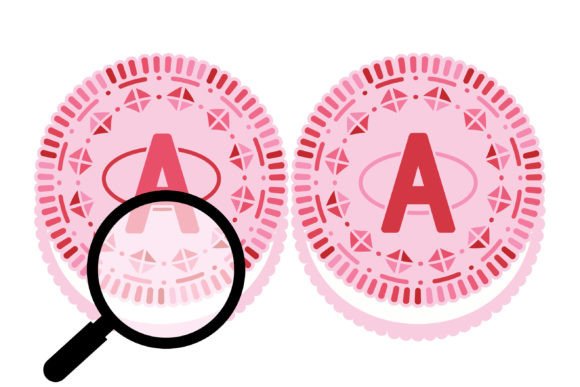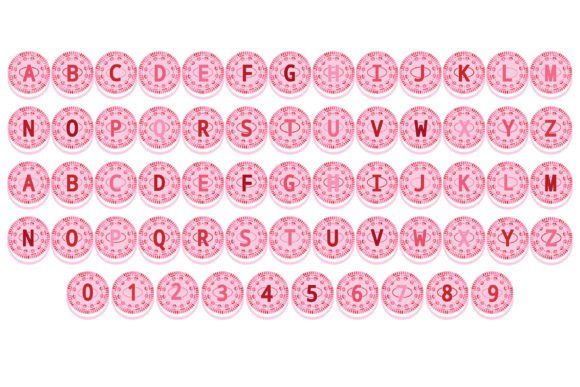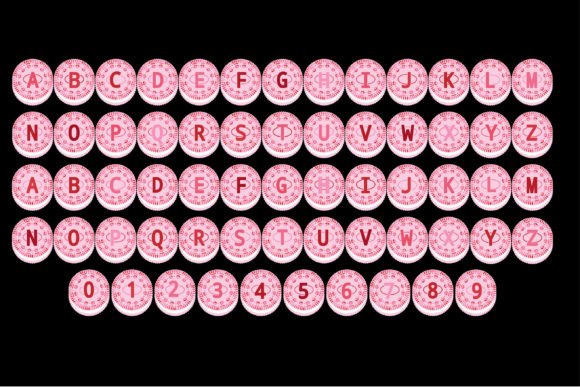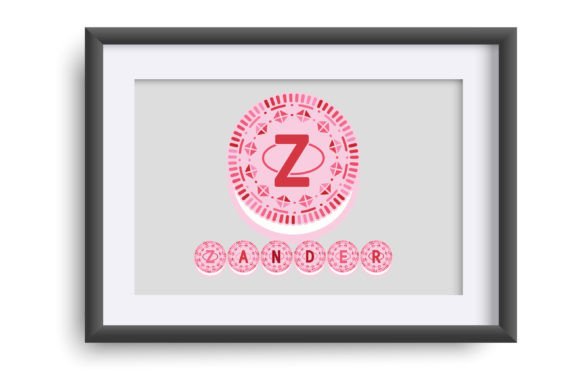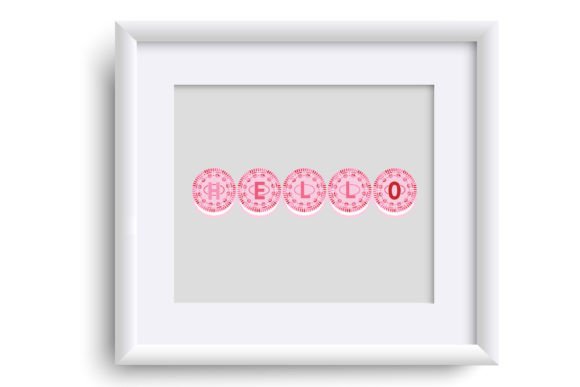
Introduction to Sandwich Cookies Love Font
Behold the charming and inviting “Sandwich Cookies Love”.
With its letters encased in rounded biscuits, this font exudes a sense of warmth and homeliness, perfect for adding a touch of comfort to any project Its lovely style and beautiful design make it the ideal choice for packaging, labels, and branding that aim to create a cozy and familiar feel.
Key Features of Sandwich Cookies Love Font
Why Choose Sandwich Cookies Love Font?